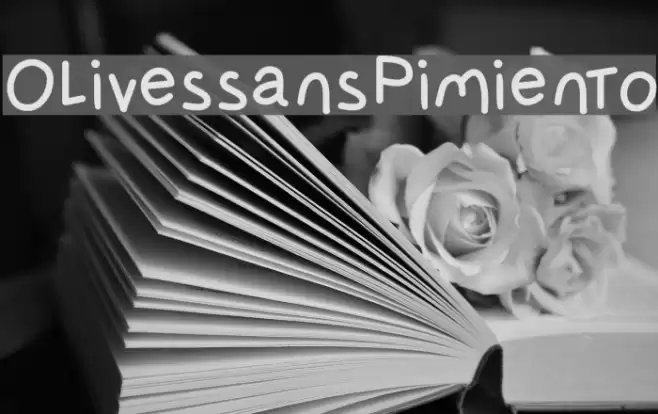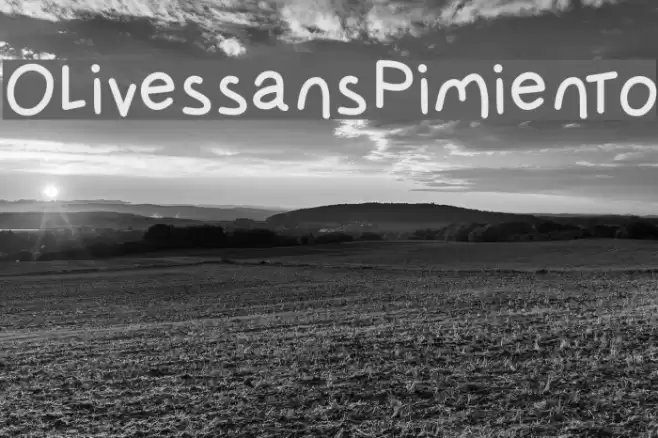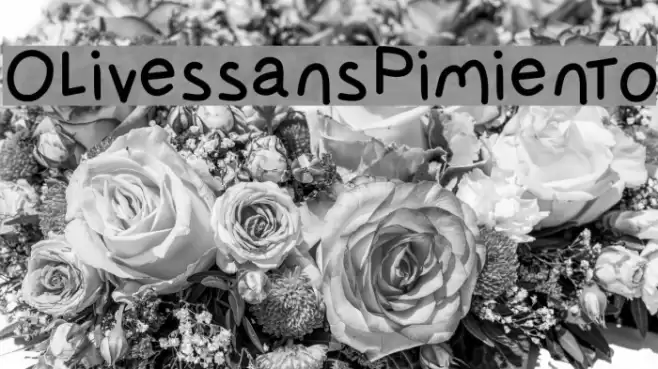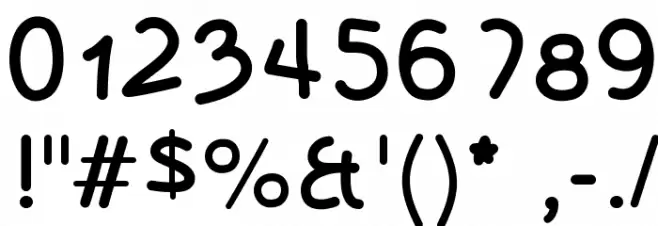
OlivessansPimiento Font
OlivessansPimiento Description
This playful and rounded font exudes a friendly and approachable vibe, characterized by its smooth curves and slightly irregular shapes. The letters are bold and have a hand-drawn quality, giving them a whimsical and informal appearance. The uppercase and lowercase letters maintain a consistent style, with a slight tilt that adds to the casual feel. The numerals and special characters are equally rounded, ensuring a cohesive look across all elements. This font is perfect for projects that require a touch of fun and creativity, such as children's books, playful branding, or casual invitations.
A playful, rounded font with a hand-drawn, whimsical style from Comic fonts.
- Proposed Projects: Children's books, playful branding, casual invitations, creative posters.
- Overall Style: Playful
- Use Case: Headlines, Logos, Informal Text